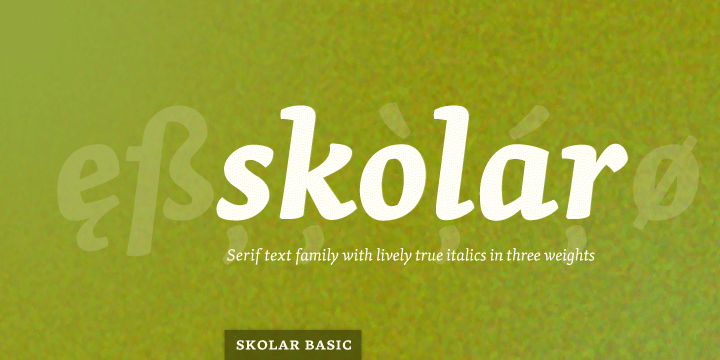
Skolar is a text serif, originally designed with scholarly and multilingual publications in mind. The typeface maintains its credibility while incorporating a subtle personal style, neither neutral nor conspicuous. Prominent serifs and low-contrast modulation add to its robustness, and, together with a relatively large x-height, improves the typeface’s readability in small sizes. This 6-weight family and large character set is flexible enough for complex text settings and editorial work. It also becomes distinctive in bigger sizes, fitting the demands of corporate design. More…
There have been many practical solutions introduced in the typeface; the capitals are rather low in comparison to the ascenders. This gives the typeface even texture and more space for capital diacritical marks. The structure of the typeface is strictly conventional, but the stroke-modulation stylistically reflects contemporary serif typefaces. The italic has a shallow angle and large counters for better readability in small print. It is easily recognized but not ostentatious, blending well with the uprights. Semibold is weighted to emphasize text blocks, where Bold is intended for word clusters.
This basic version of Skolar includes necessary tools for common office work, such as basic f-ligatures and kerning. A wider range of typographic tools, such as discretionary ligatures, small caps, five sets of figures, superiors, inferiors, fractions, various bullets, and combinable arrows, are available only in the full version of Skolar. The language support is same in both.